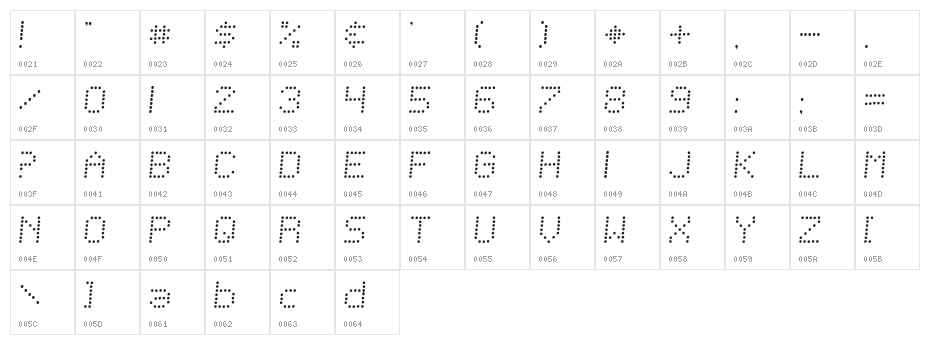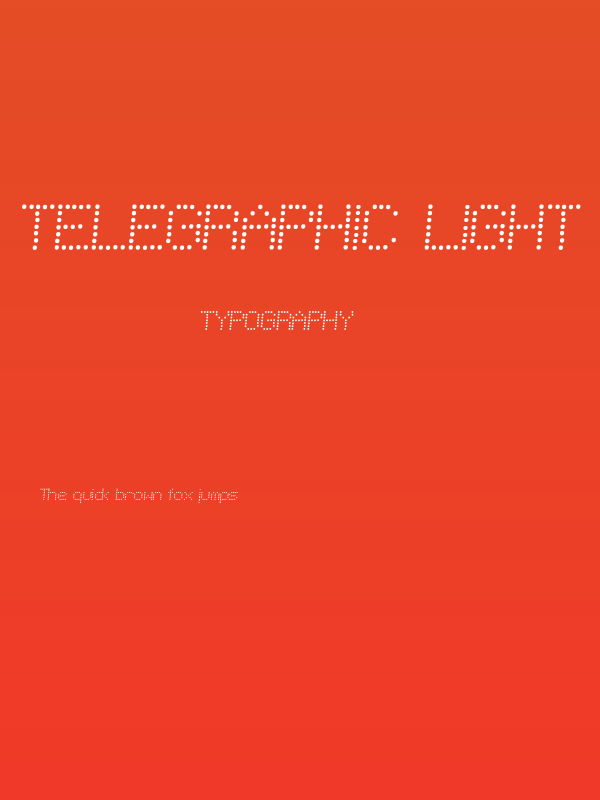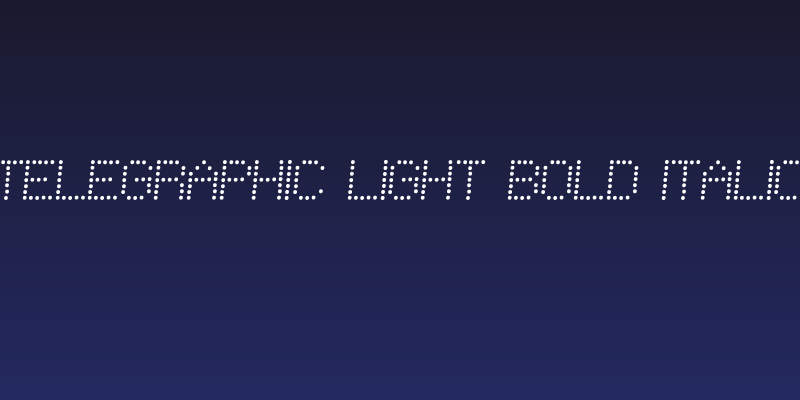
Telegraphic Light Bold Italic Font
Telegraphic Light Bold Italic Description
This font features a unique design composed entirely of dots, creating a digital and modern aesthetic reminiscent of old telegraph or LED displays. Each character is constructed from a grid of evenly spaced dots, giving it a pixelated appearance. The font maintains a consistent weight throughout, with no variation in stroke thickness, contributing to its uniform and cohesive look. The characters are well-defined and legible, making it suitable for display purposes where a futuristic or technological theme is desired. The spacing between characters is normal, ensuring readability while maintaining the distinct style.
| Proposed Projects | Ideal for digital displays, tech-themed posters, futuristic branding, and retro-inspired designs. |